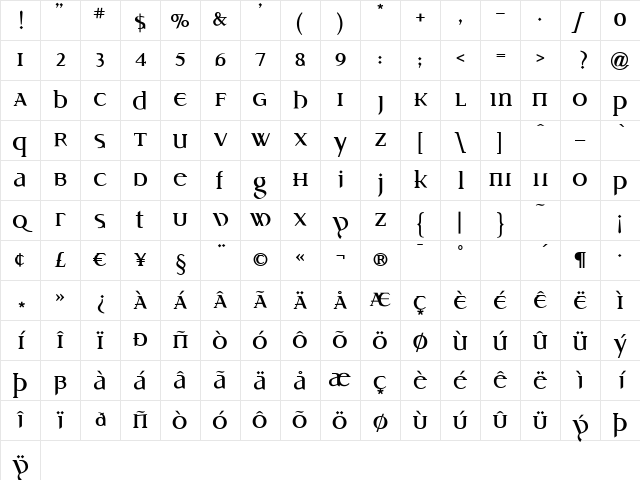
Idiosynoptium Regular Free Font
Idiosynoptium Regular
Design Context for Idiosynoptium
Idiosynoptium is a composed and adaptable typeface that performs quietly and consistently across a wide range of design contexts.
Pro Tip: Use Idiosynoptium in both headline and body roles to test its range before committing to a single application.